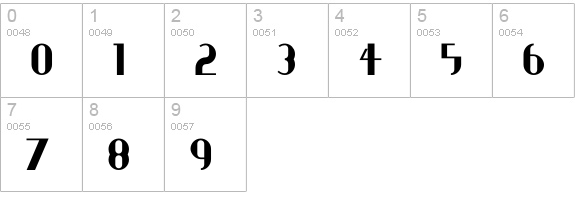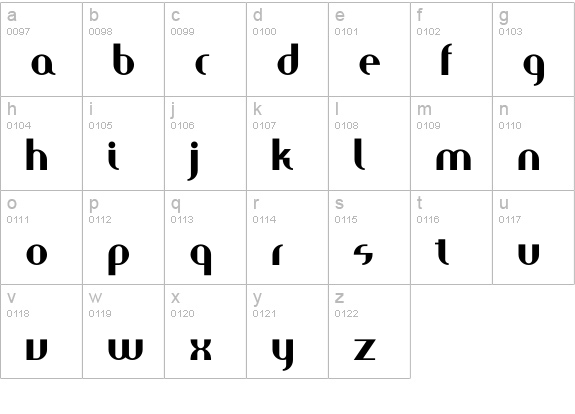
FastGirls-ACup Font Details
FastGirls-ACup font is a stylish and modern typeface that exudes confidence and energy. With its sleek lines and bold curves, this font is perfect for making a statement in any design project. Whether you're creating a poster, logo, or website, FastGirls-ACup will add a touch of flair and sophistication. The best part? FastGirls-ACup font is completely free to download at FontsMarket.com. So go ahead and give your projects a boost with this eye-catching and versatile font. Let your creativity shine with FastGirls-ACup!